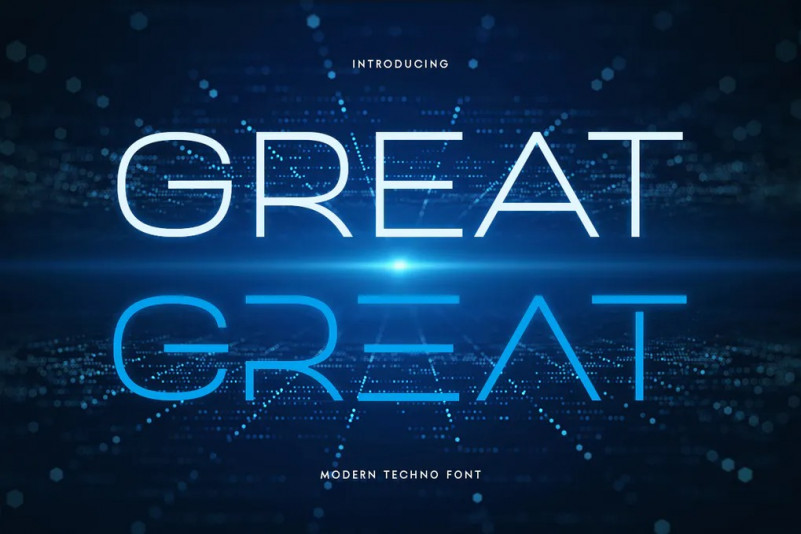
GREAT Font
GREAT Modern Techno font ready with:
Any alternative characters prepared to get creative variations
Preview as a inspirations that you can do with GREAT font
Ready with All Uppercase characters